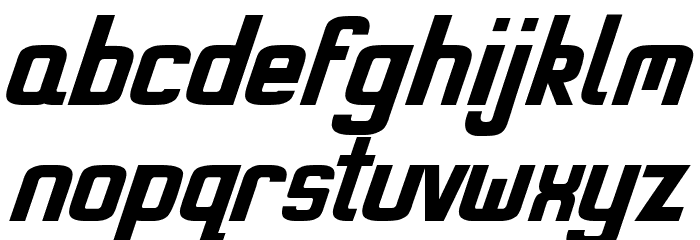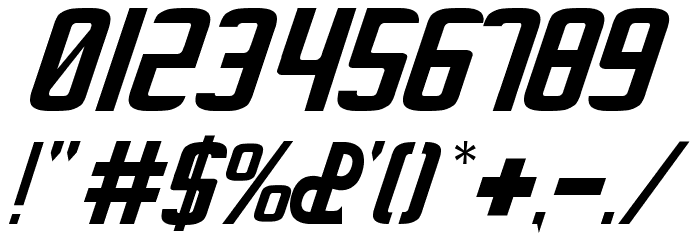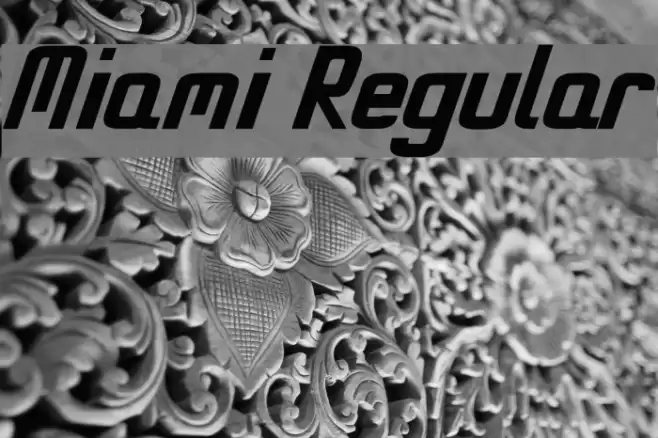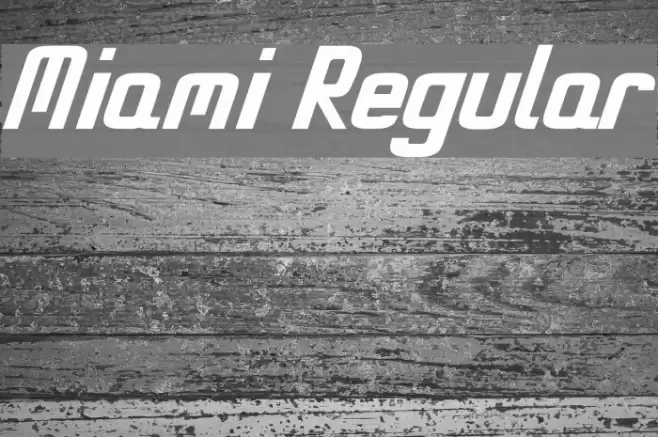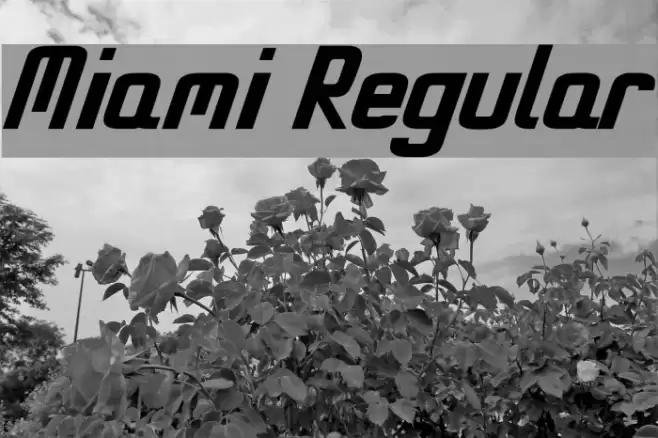
Miami Regular Font
This font features a dynamic and modern design with a strong slant, giving it a sense of motion and energy. The characters are bold and angular, with a consistent stroke width that maintains readability while adding a sleek, futuristic aesthetic. The uppercase letters are tall and narrow, while the lowercase letters maintain a similar style with slightly more rounded edges. Numbers and special characters follow the same design principles, ensuring uniformity across all glyphs. This font is well-suited for projects that require a bold, impactful look.
A bold, slanted font with a modern, dynamic style.
- Proposed Projects: Ideal for sports branding, automotive design, tech-related projects, and dynamic advertising campaigns.
- Use Case: Headlines, Logos, Branding